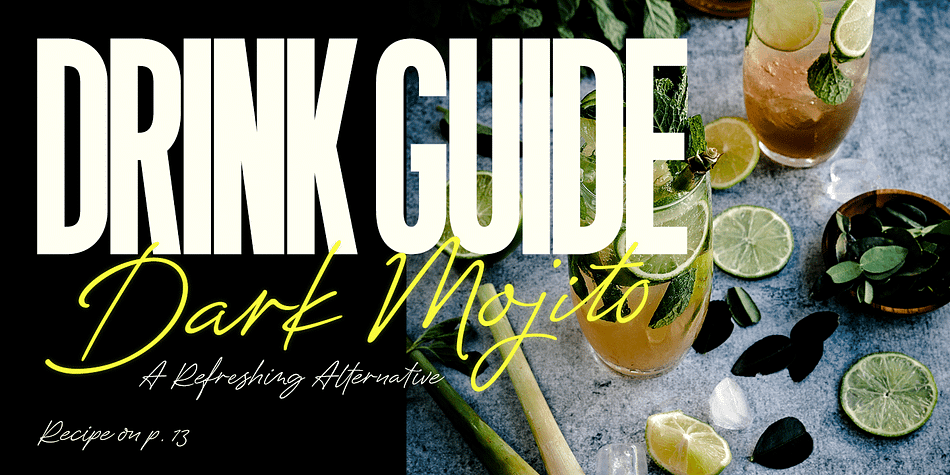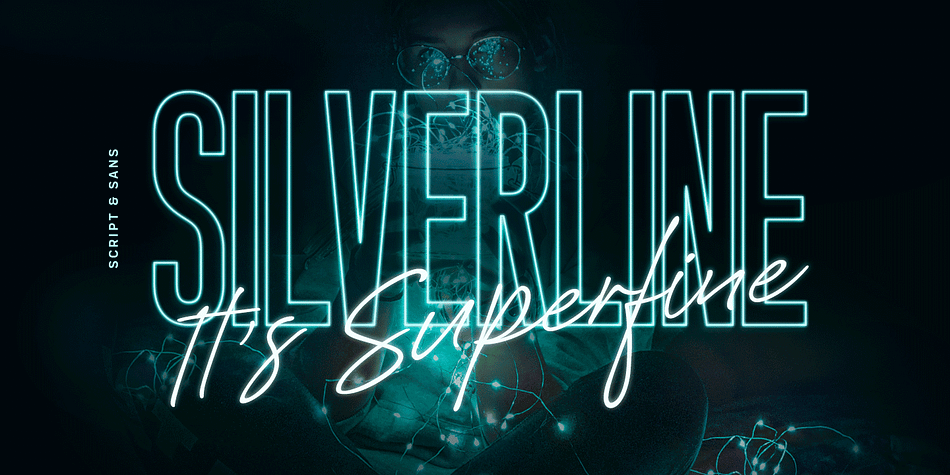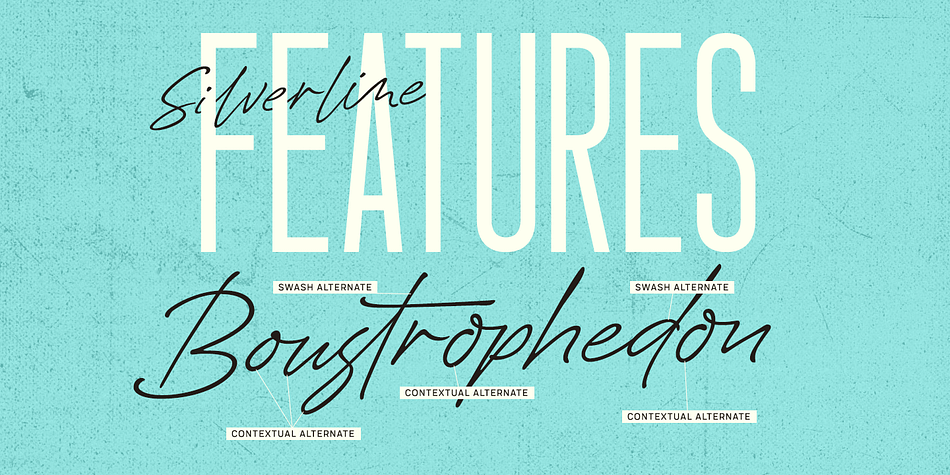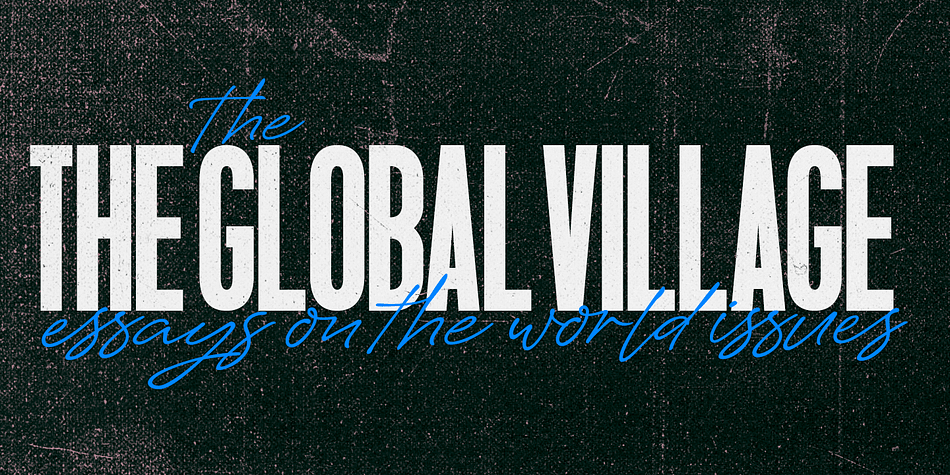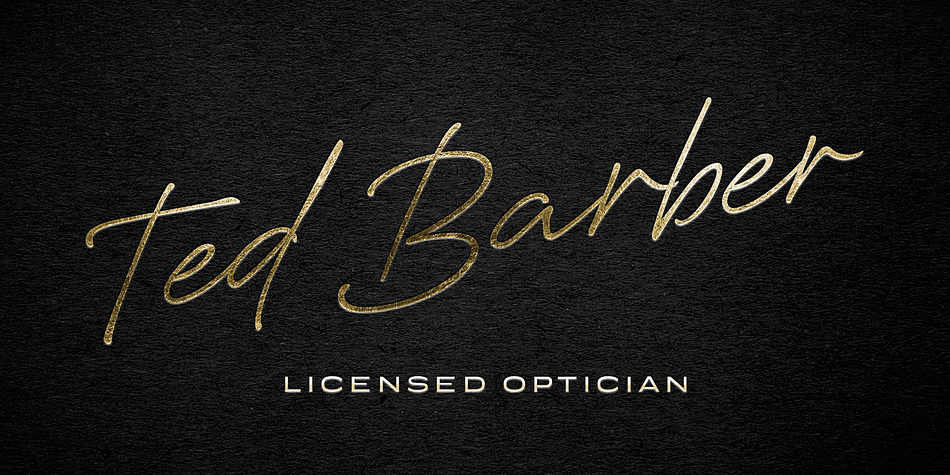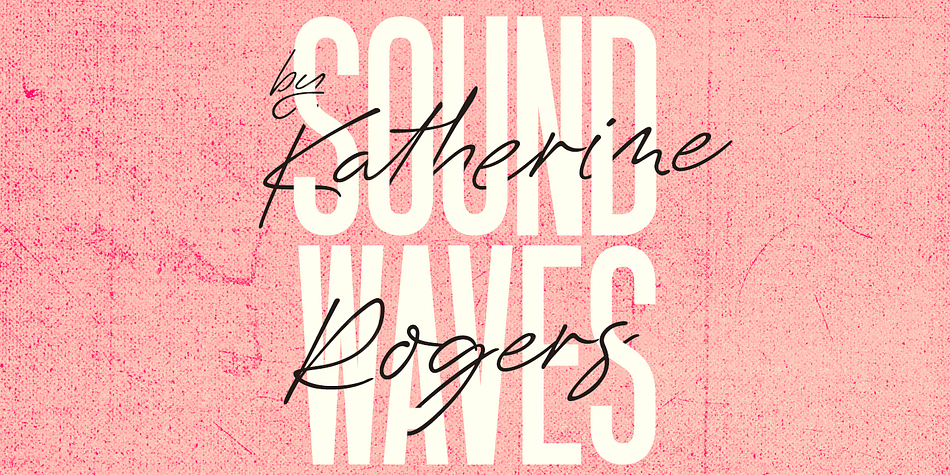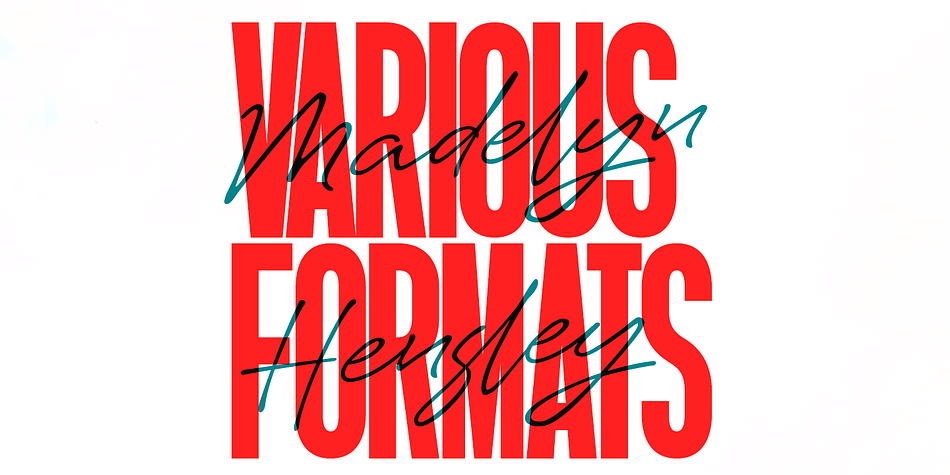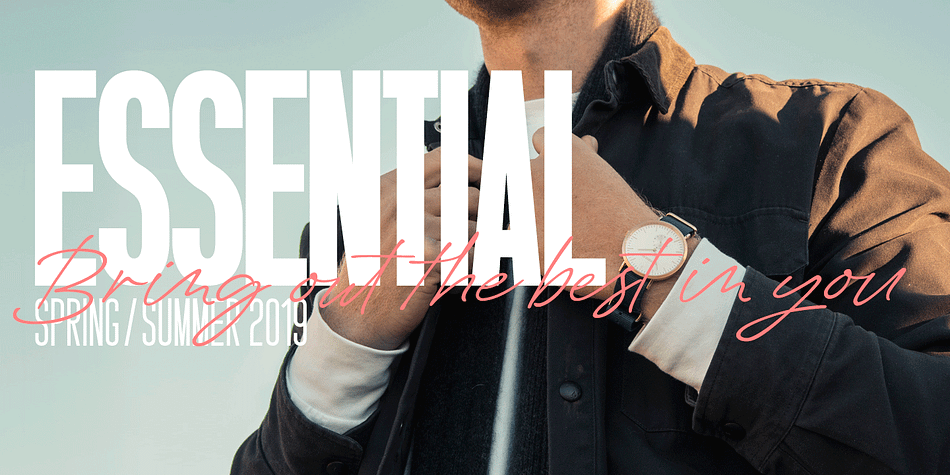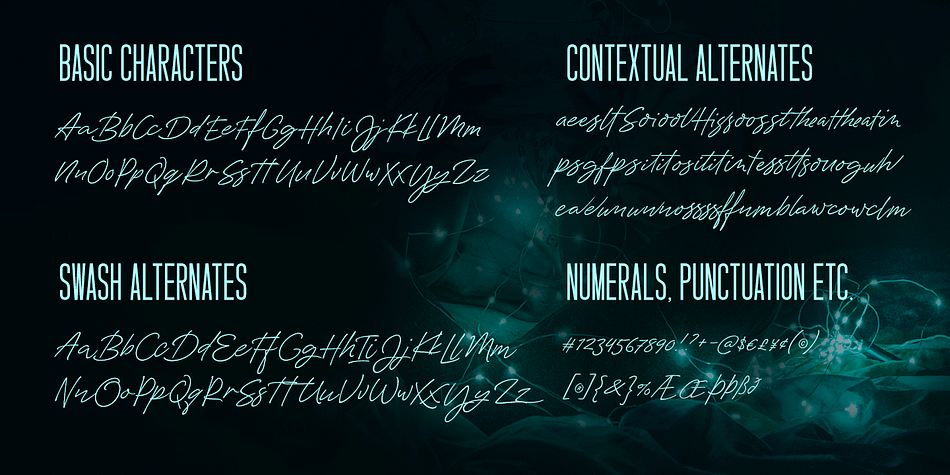
Designed by Emil Bertell, Silverline is a display sans and script font family. This typeface has four styles and was published by Fenotype.
Silverline Script & Sans
Silverline Script is a hand drawn signature style script. Silverline is fast and expressive -it’s great for contemporary branding and advertising.
Silverline Script is equipped with Contextual Alternates and Standard Ligatures that keep the script eloquent and connections smooth. Contextual Alternates and Standard Ligatures are automatically on. In addition Silverline Script has Swash Alternates for A-Z and a-z that can be used for extra flair. From Discretionary Ligatures you’ll find specially designed ligatures for “and”, “for”, “the”, “at” and “in”. Silverline Script is PUA encoded so you can access extra glyphs in any graphic design software.
Another half of the Silverline family is Silverline Sans -a three weight ultra-condensed sans serif that works great with the Script. Silverline Sans is great for making sturdy text word blocks - a great type for any display use from magazine covers to packaging. Try combining Silverline Script with Silver Script -they make a nice contrast together.
Designer | Emil Karl Bertell |